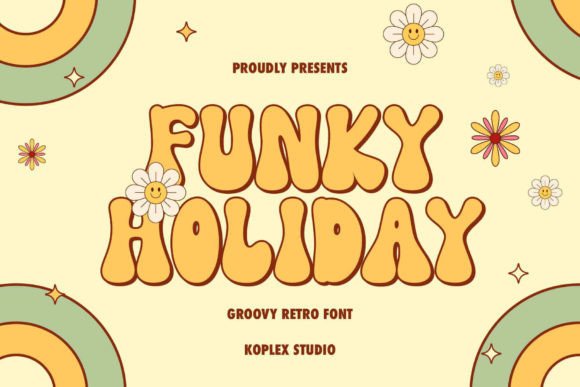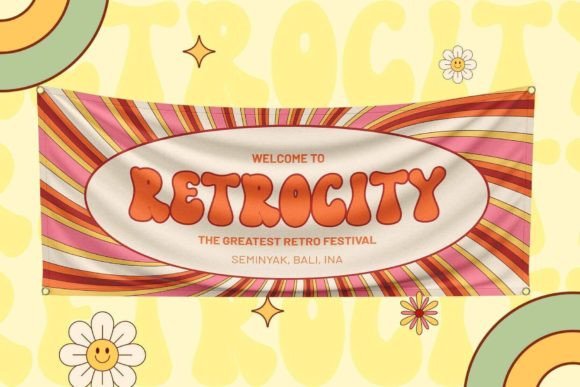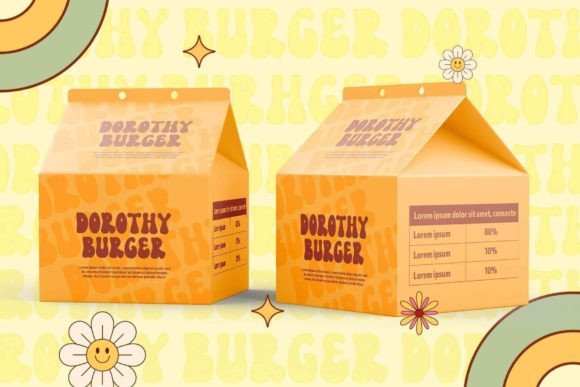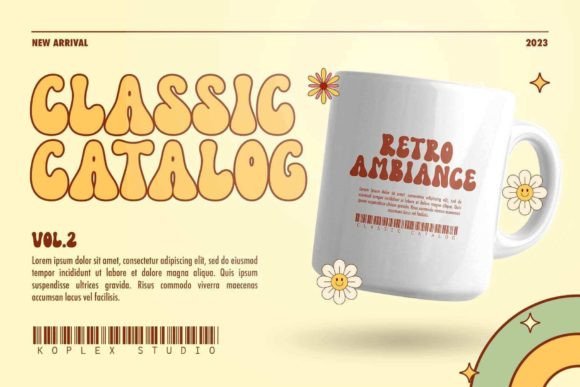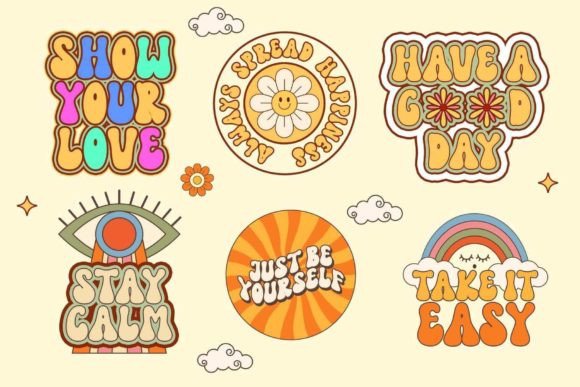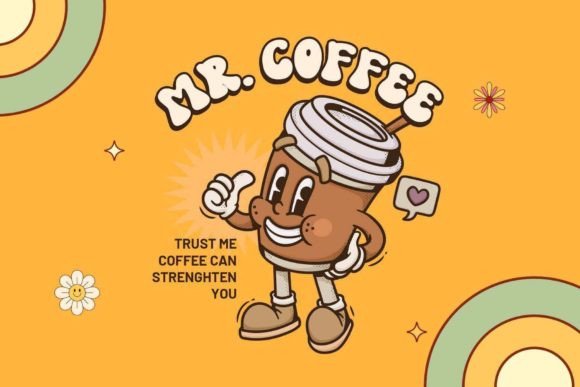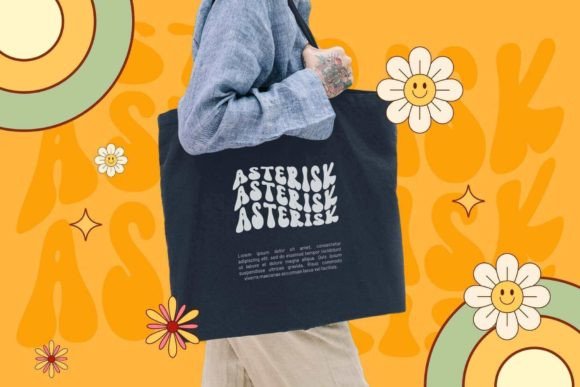
Funky Holiday Font
Funky Holiday – Groovy Retro Font is a vibrant and nostalgic font that will transport you to the cheerful and carefree atmosphere of the 70s. This font embodies the essence of retro design with its bold and playful letterforms, reminiscent of disco parties and funky vibes. With its unique and eye-catching style.